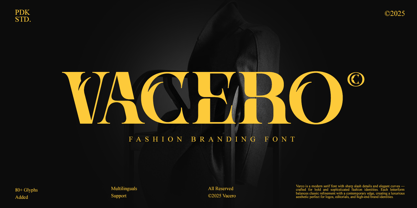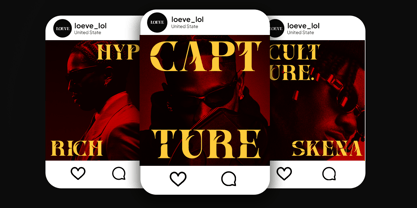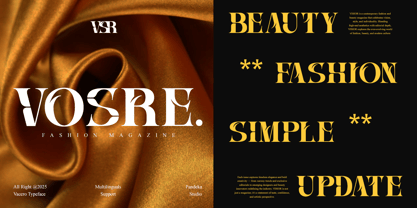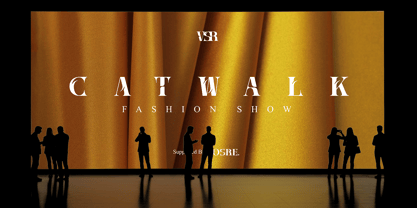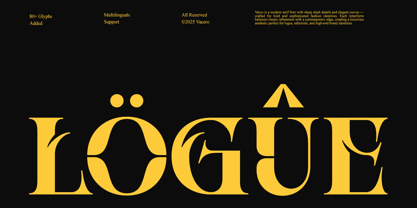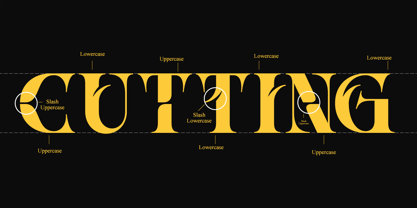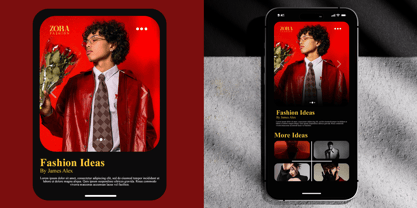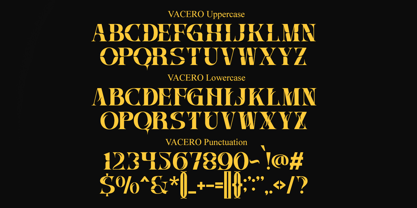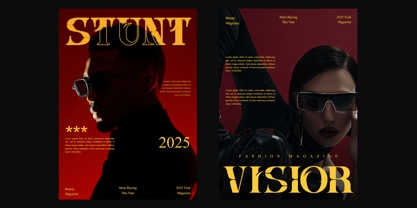
Vacero
by Pandeka Studio
The Vacero Font Family was designed by Sagara Nararya and published by Pandeka Studio. Vacero contains 1 styles. More about this family
Vacero is a bold and stylish serif typeface that embodies high fashion, confidence, and exclusivity. Designed with refined contrast and dramatic shapes, this font brings a luxurious editorial feel perfect for branding, magazine layouts, and modern advertising campaigns.
Its sleek lines and distinctive details evoke sophistication and attitude, making Vacero the ideal choice for fashion houses, creative studios, beauty brands, and luxury lifestyle projects. Whether used for headlines, logos, or social media visuals, it effortlessly delivers a sense of power and elegance.
Vacero comes in one regular style and includes uppercase, lowercase, numbers, punctuation, and multilingual support for global creative expression.
• 1 Style: Regular
• Full Character Set: Uppercase, lowercase, numbers, symbols, and punctuation